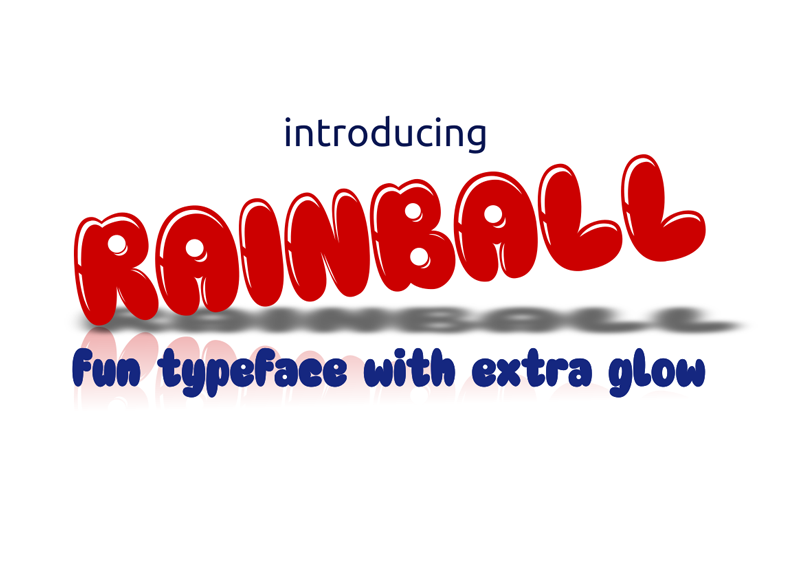
Font name: | Rainball |
Author: | Onne Hermawan |
Rainball is a unique extra bold typeface. Suitable for any design needs, branding, advertising design, Book/Cover Title, special events, and any lettering needs. This version is free for personal use only, for the full version can be found in here https://www.creativefabrica.com/product/rainball/ref/185557/ Thankyou.. |